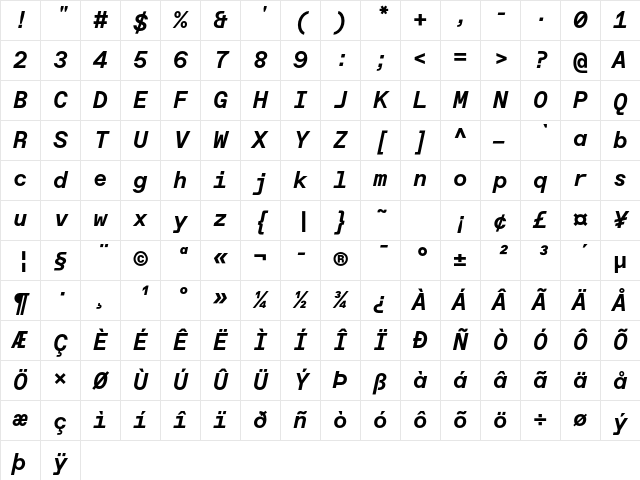
Complete Favorit Mono Std Bold Italic glyph index. Displaying only characters natively supported by Favorit Mono Std Bold Italic font.
Favorit Mono Std uses fixed-width spacing throughout, giving it the structured, systematic character associated with coding environments and technical documentation. The slanted form adds forward momentum and visual energy. Its bold stroke weight gives it real presence on the page.
Pro Tip: Use Favorit Mono Std with slightly increased line-height for extended reading - fixed-width spacing can feel dense in longer passages without extra breathing room.